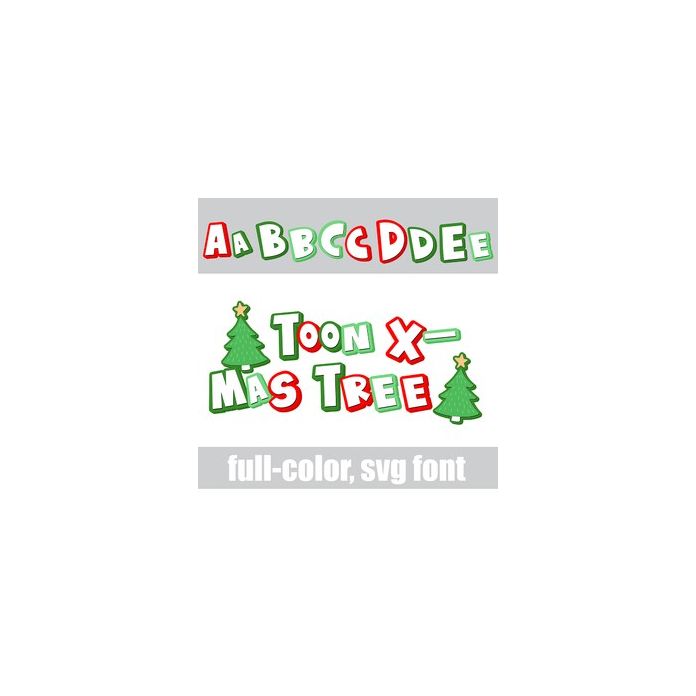
This full-color font features toon-like lettering with heavy shadows in a Christmas color palette. Access the Christmas trees by typing the greater than or less than glyphs. There is an alt case w/ additional colors you can access through your system or Silhouette's glyph map.